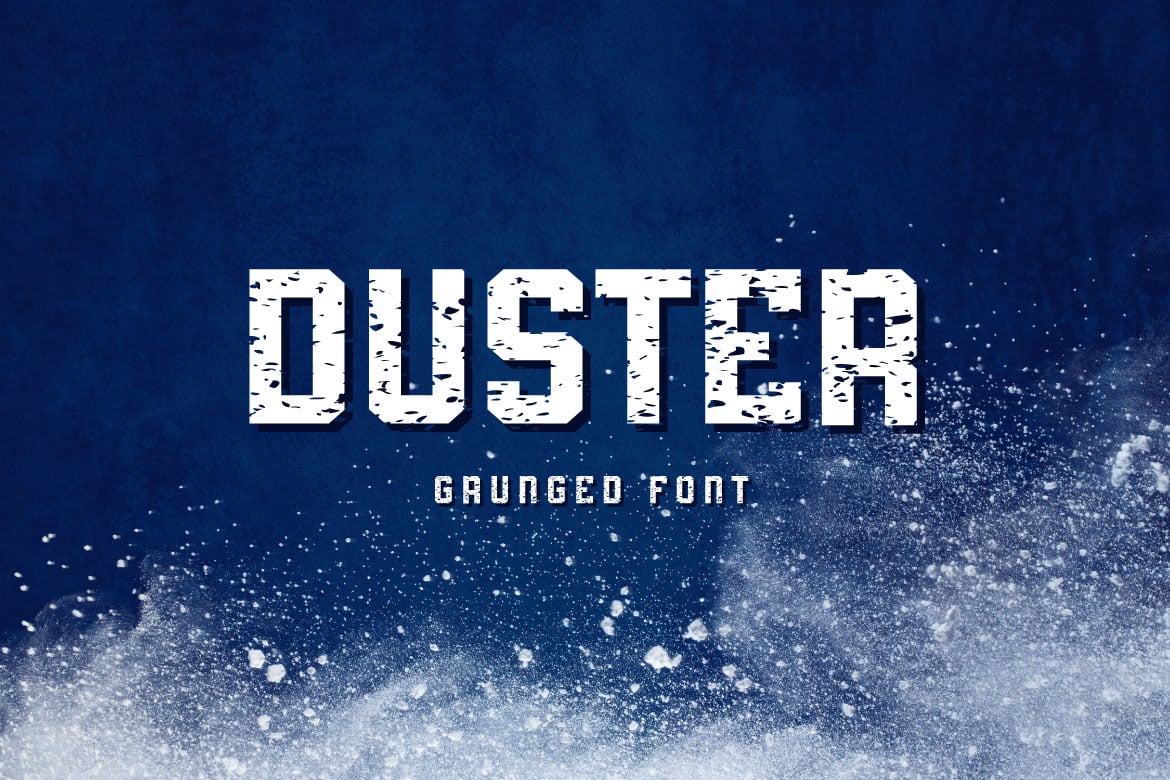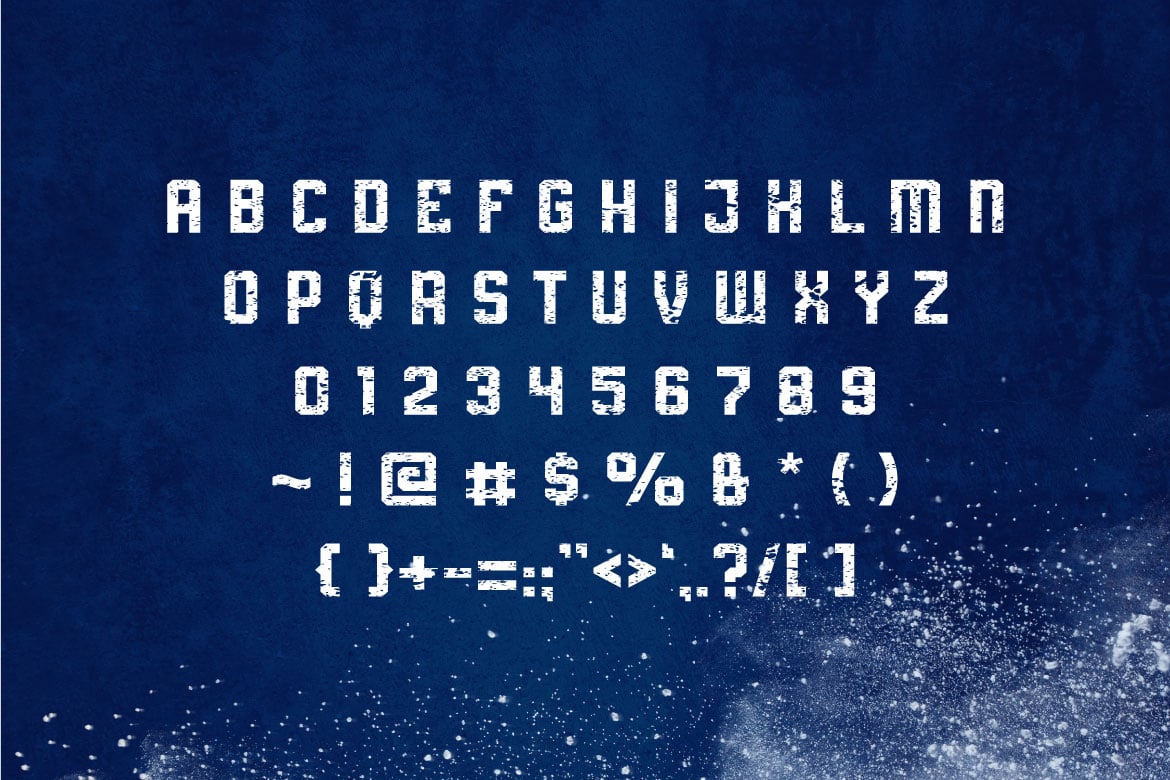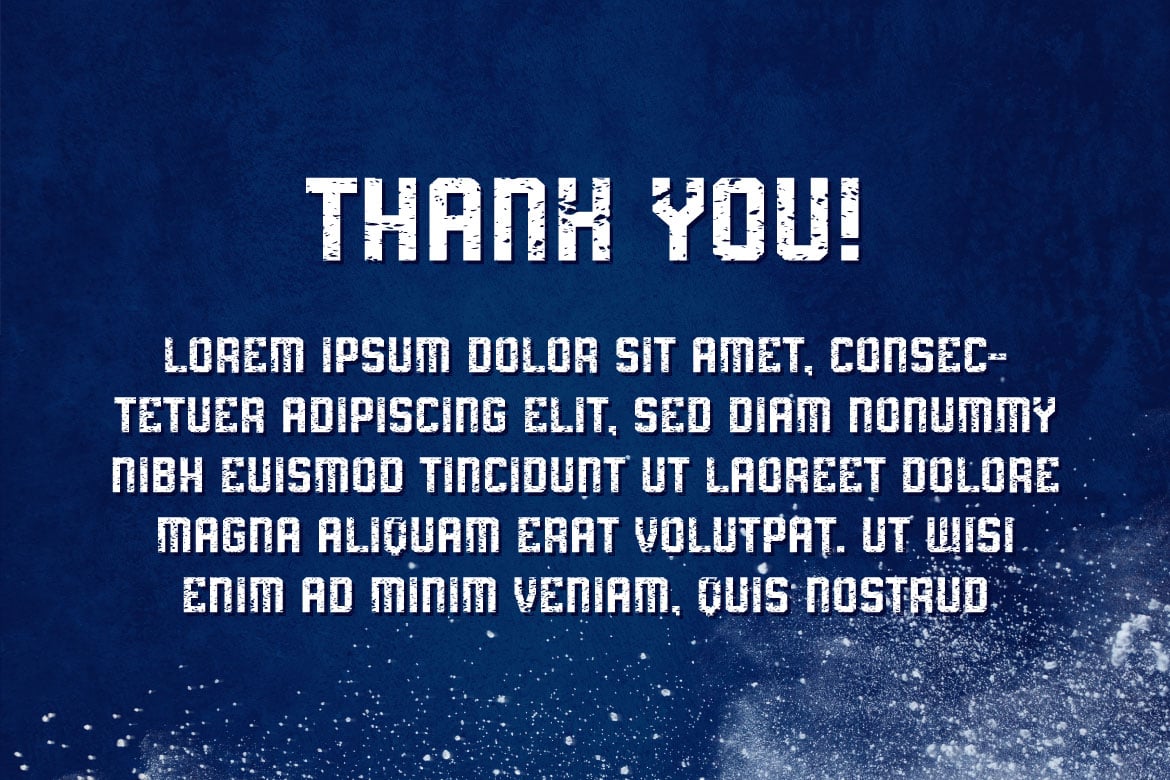
Duster – Grunged font
If you are looking for a grunged display font, meet DUSTER
Duster is perfect for any works, such as Winter or metal poster, card, book title, headline of news, banner, flyer, stationery and many more. It also can be used in Any scale work.